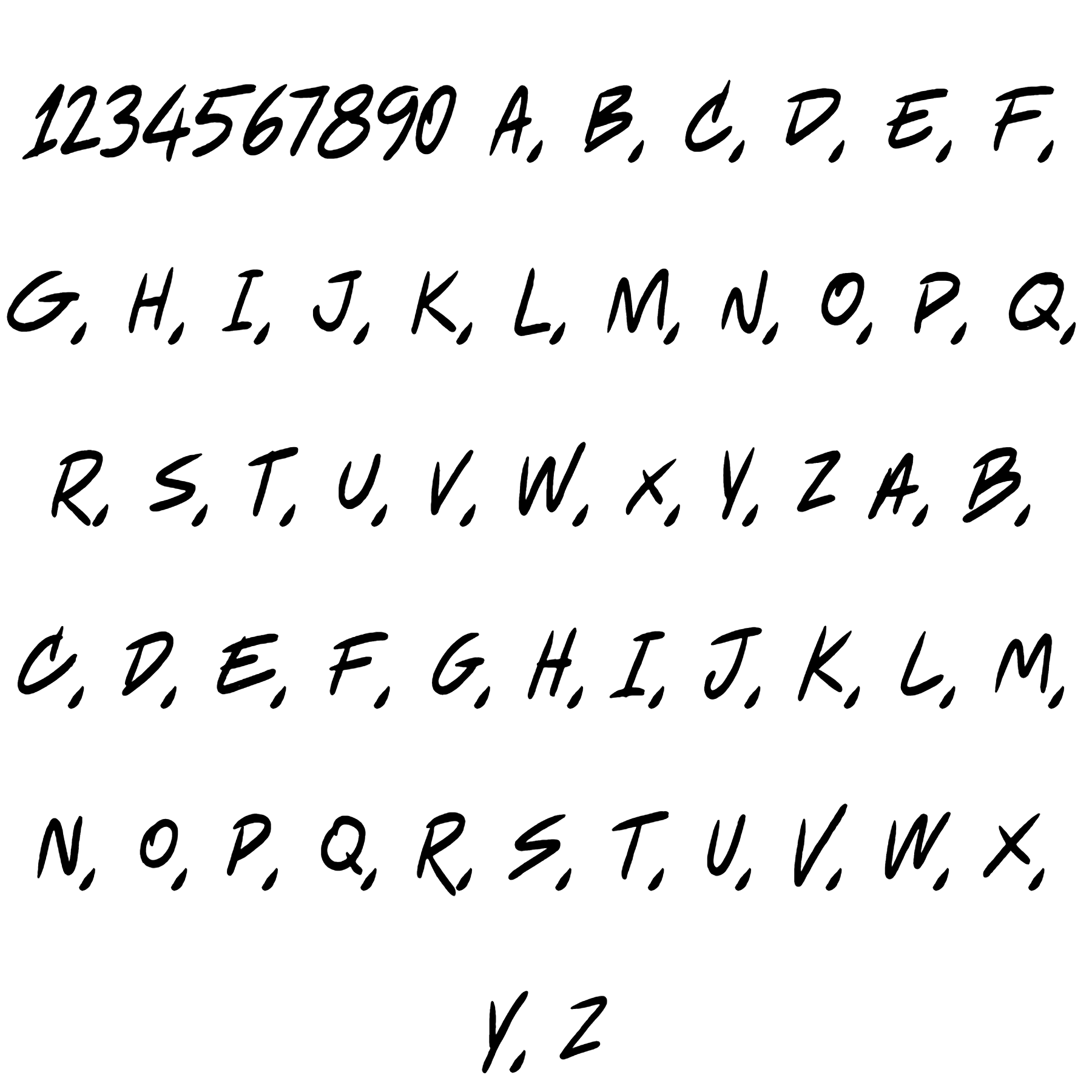
Lasagnio Wiggly
Lasagnio Wiggly is a comic font designed by Riyadh Rahman. Its bouncy, rounded letters feel playful, like lettering from a cartoon or a comic book. It's a free download, and you can try it with your own text in the preview above first.
What You Can Type With Lasagnio Wiggly
Lasagnio Wiggly covers the full alphabet in upper and lowercase, plus all ten numbers, so you can set names, dates and prices without switching fonts. Common punctuation such as &, !, ? and @ is included as well. It also has the accented letters you need for Spanish, French, German, Portuguese and Italian.
Where Lasagnio Wiggly Works Best
Lasagnio Wiggly is a natural fit for comic strips, speech bubbles and playful headings. Its lowercase letters are small compared to the capitals, so set it a size or two bigger than usual. Cartoon fonts are great for short, fun lines. If you place it over a busy photo, add a thick outline or a drop shadow so it stays readable.
Does Lasagnio Wiggly support accented letters?
Yes. Lasagnio Wiggly includes the accented letters needed for Spanish, French, German, Portuguese and Italian, so it works for more than just English.